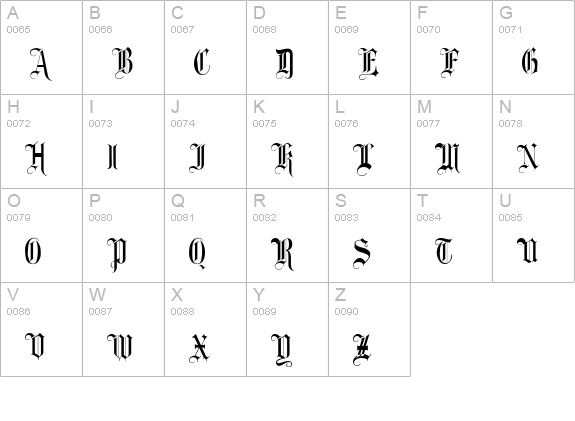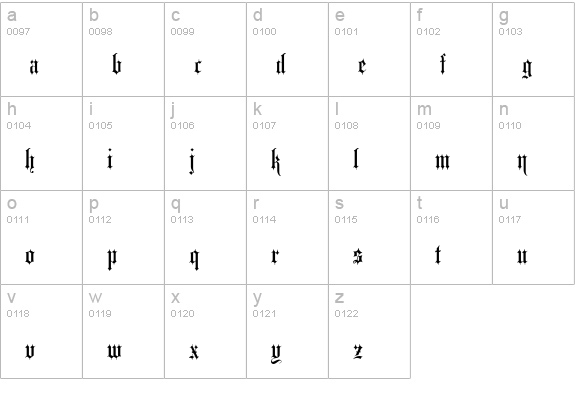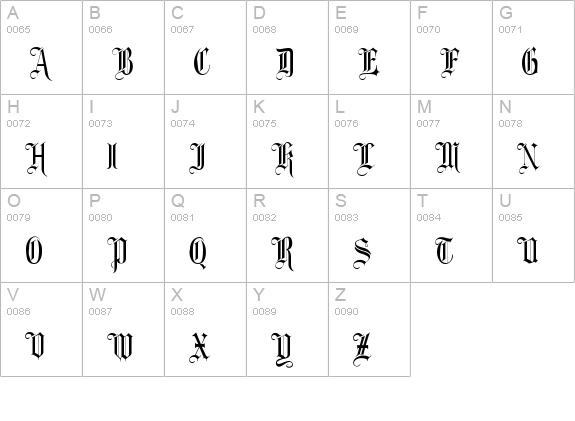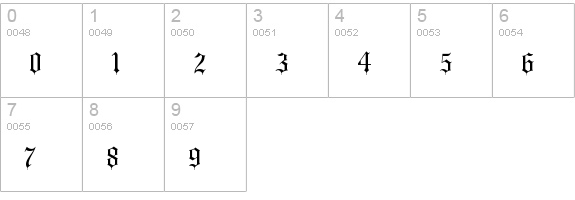
Fancy Card Text Font Details
Fancy Card Text is a free for personal use font in the Foreign Look > Old English category. It has been downloaded 8 times and is available for Windows, Mac and Linux.
Introducing Fancy Card Text font, an exquisite and elegant typeface that will add a touch of sophistication to any design project. This font is perfect for creating stunning invitations, greeting cards, or any other creative masterpiece that requires a touch of class. Fancy Card Text font boasts beautifully crafted letterforms, with delicate curves and intricate detailing that exudes luxury and refinement. Its stylish and ornate design captures the essence of classic calligraphy, making it the perfect choice for those seeking a timeless and sophisticated look. But what sets Fancy Card Text font apart is not just its stunning aesthetics, but also its accessibility. We believe that great design should be available to everyone, and that's why we're thrilled to offer this font completely free of charge. Yes, you read that right - Fancy Card Text font is freely available to download at FontsMarket.com. Whether you're a professional designer or an enthusiast looking to add a touch of elegance to your personal projects, Fancy Card Text font is the perfect choice. Its versatility allows it to be used in a wide range of creative applications, from wedding invitations and event posters to branding materials and social media graphics. With its timeless beauty and the added bonus of being free, Fancy Card Text font is a must-have for any designer's toolkit. So why wait? Head over to FontsMarket.com now and unleash your creativity with this exquisite typeface. Download Fancy Card Text font today and elevate your designs to new heights of sophistication and style.